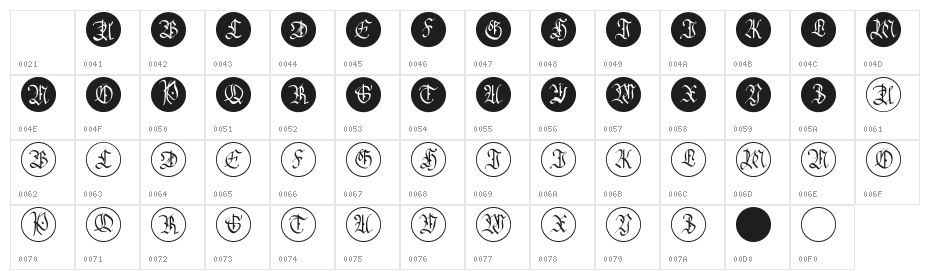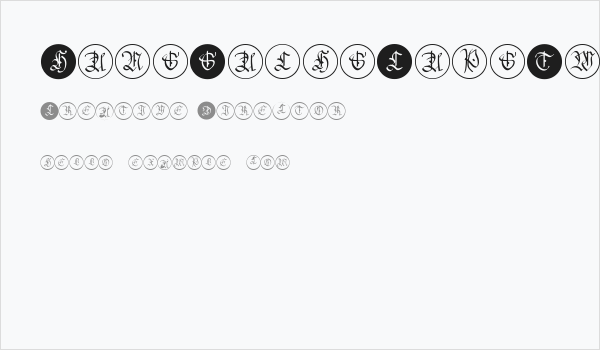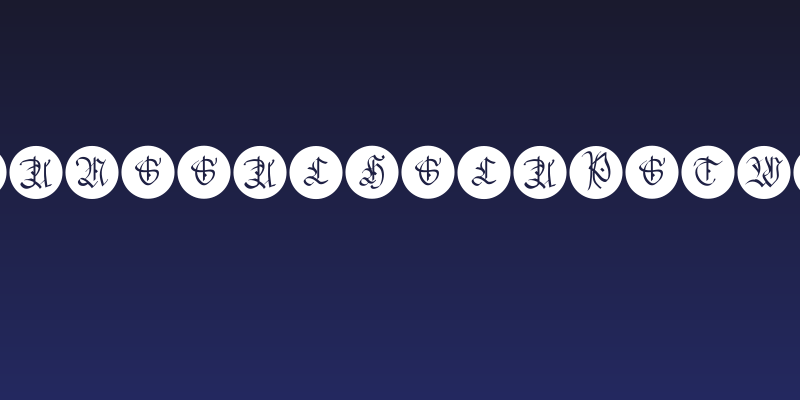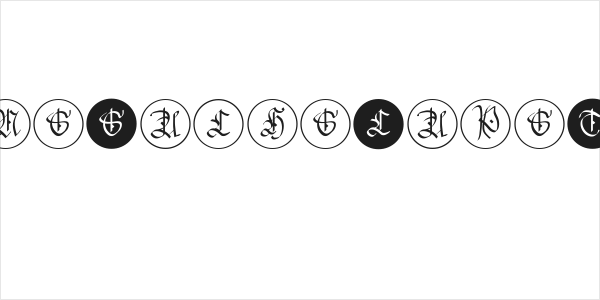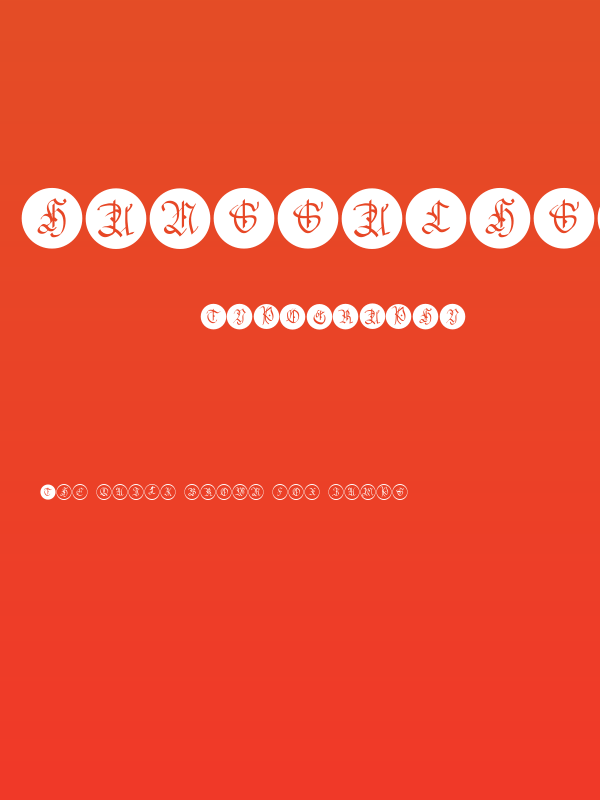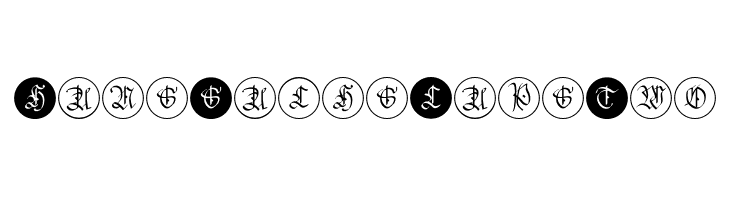
This font features an ornate and decorative style, reminiscent of traditional blackletter typography. Each letter is encased in a circular border, adding a unique and formal touch. The intricate design of the characters suggests a historical or medieval influence, with elaborate curves and sharp angles that create a sense of elegance and sophistication. The font is highly stylized, making it suitable for projects that require a touch of classic or vintage appeal. Its distinct appearance ensures that it stands out, making it ideal for special occasions or themed designs.
| Use Case | Logos, Invitations, Certificates |
| Proposed Projects | Ideal for invitations, certificates, historical-themed designs, or branding that requires a vintage touch. |